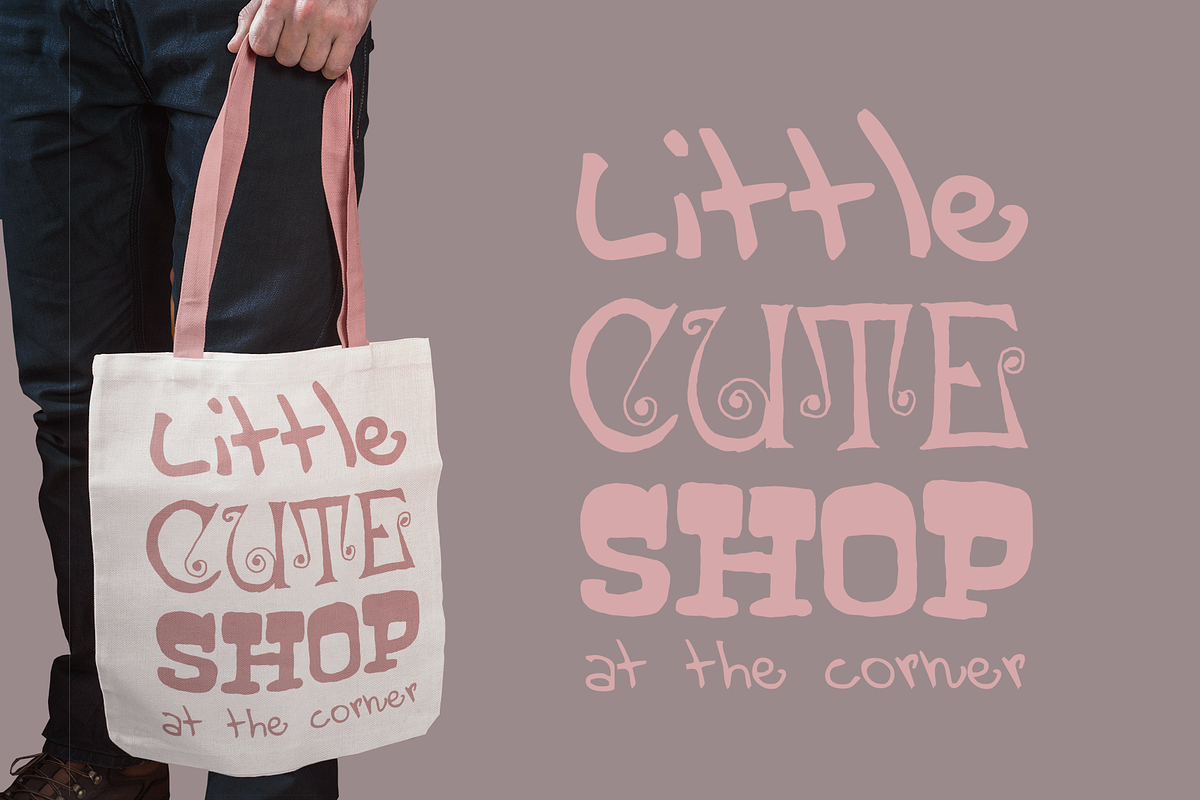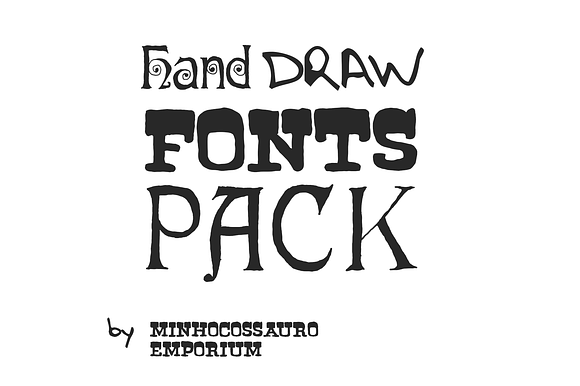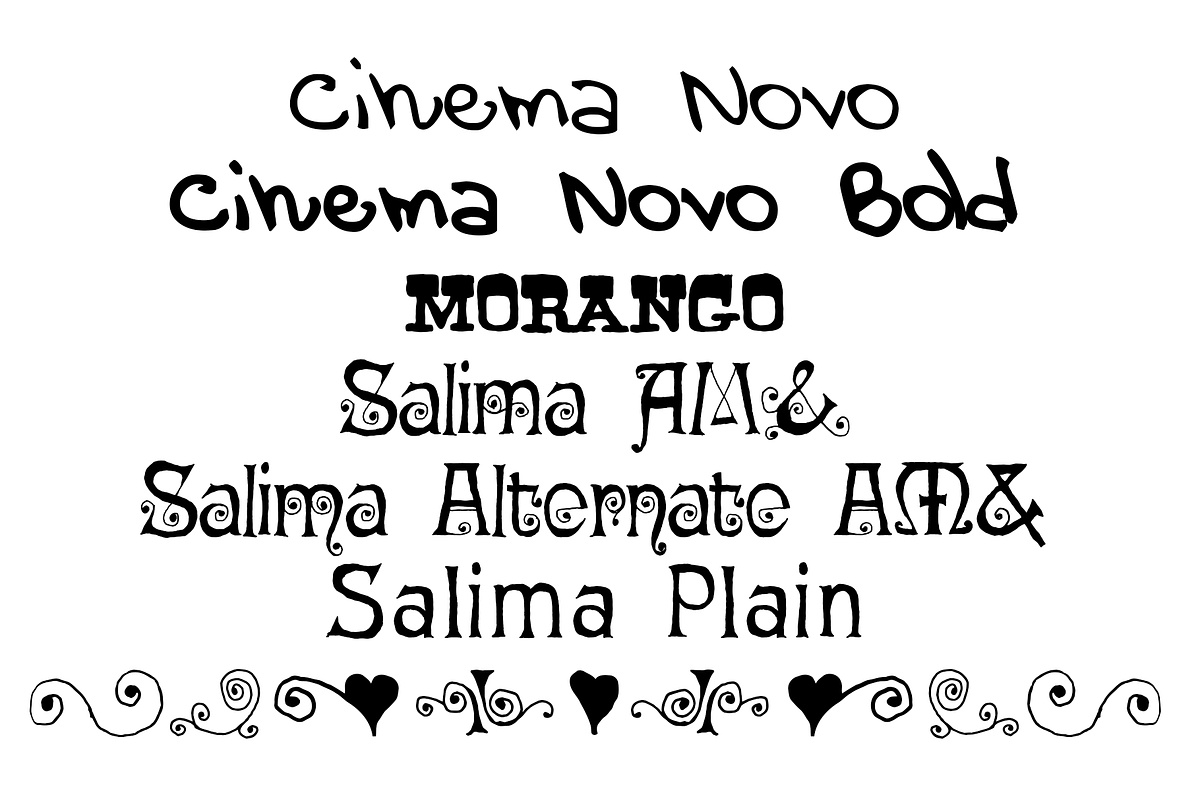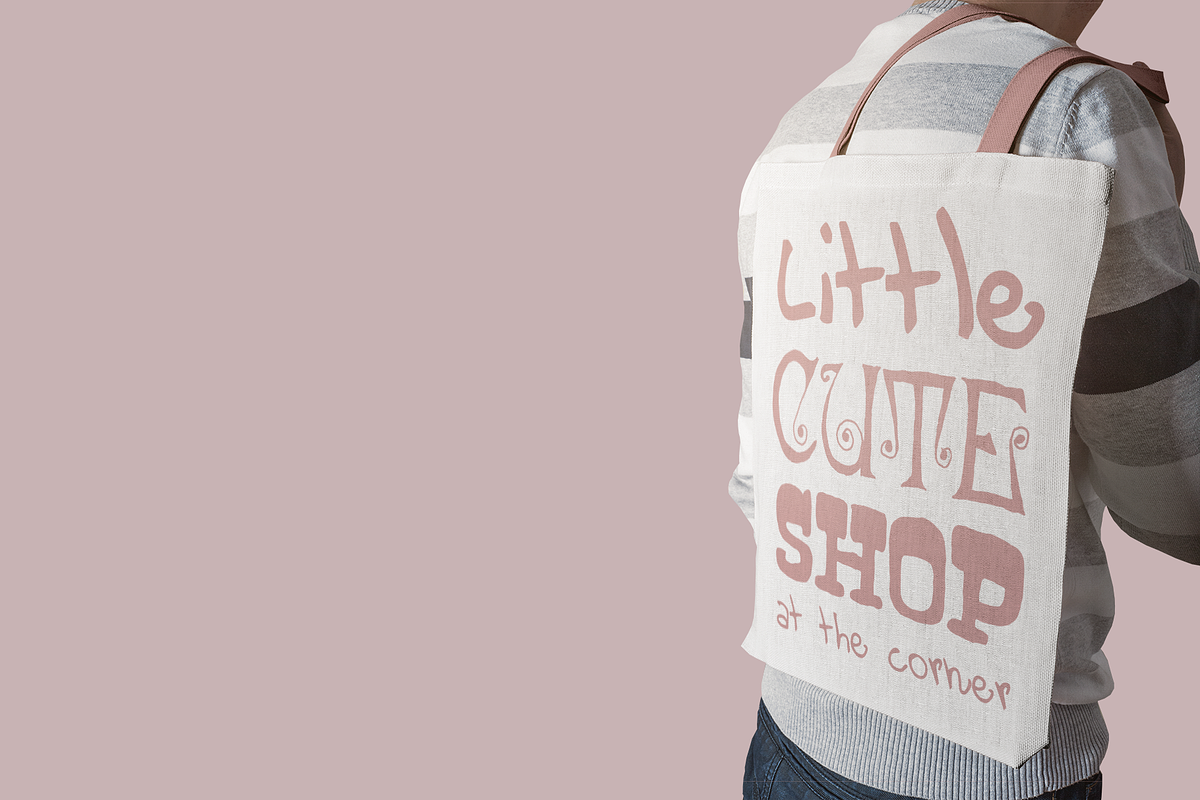
Hand Drawn Fonts Pack
Why Hand Drawn Fonts Pack is worth a look
Hand Drawn Fonts Pack by Minhocossauro Emporium fits naturally into Branding, posters, packaging, typography.